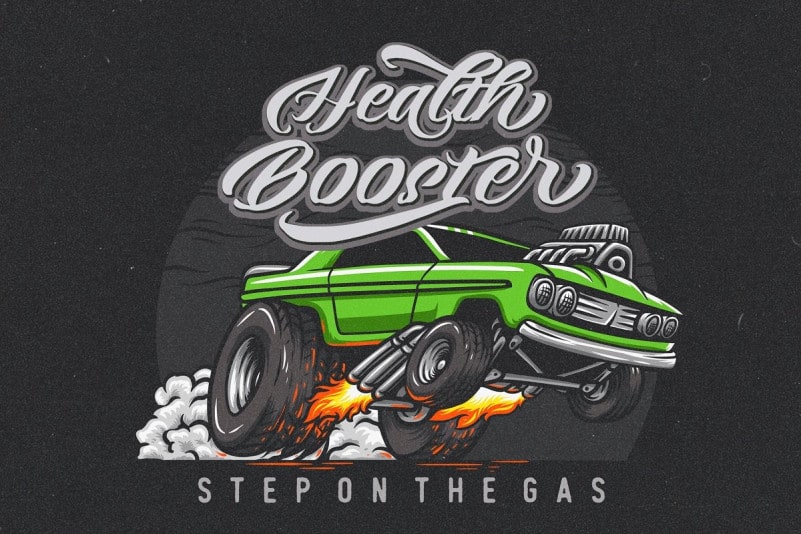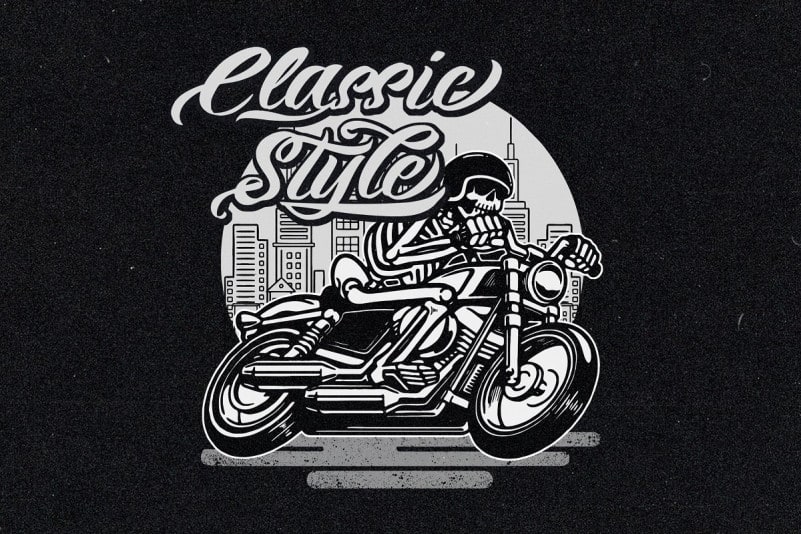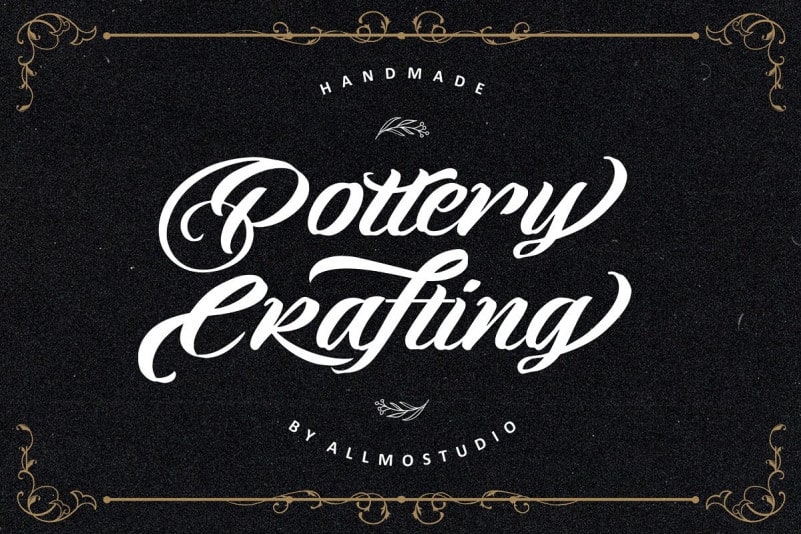
Pottery Crafting Script Font
Introducing Pottery Crafting Script Font. It’s a cute and casual calligraphy font with an incredibly friendly feel. Whether you’re looking for fonts for Instagram or calligraphy scripts for DIY projects, this font will turn any creative idea into a true piece of art! It’s a clean and lining brush script, It is suitable for logos, titles, t-shirts, packages and where ever you will need this kind of lining and legible script font. Pottery Crafting comes with uppercase, lowercase, numerals, punctuations and so many variations on each characters include opentype alternates and Ligatures. character set supporting most Central European and Eastern European languages. Thanks for loving our items 🙂